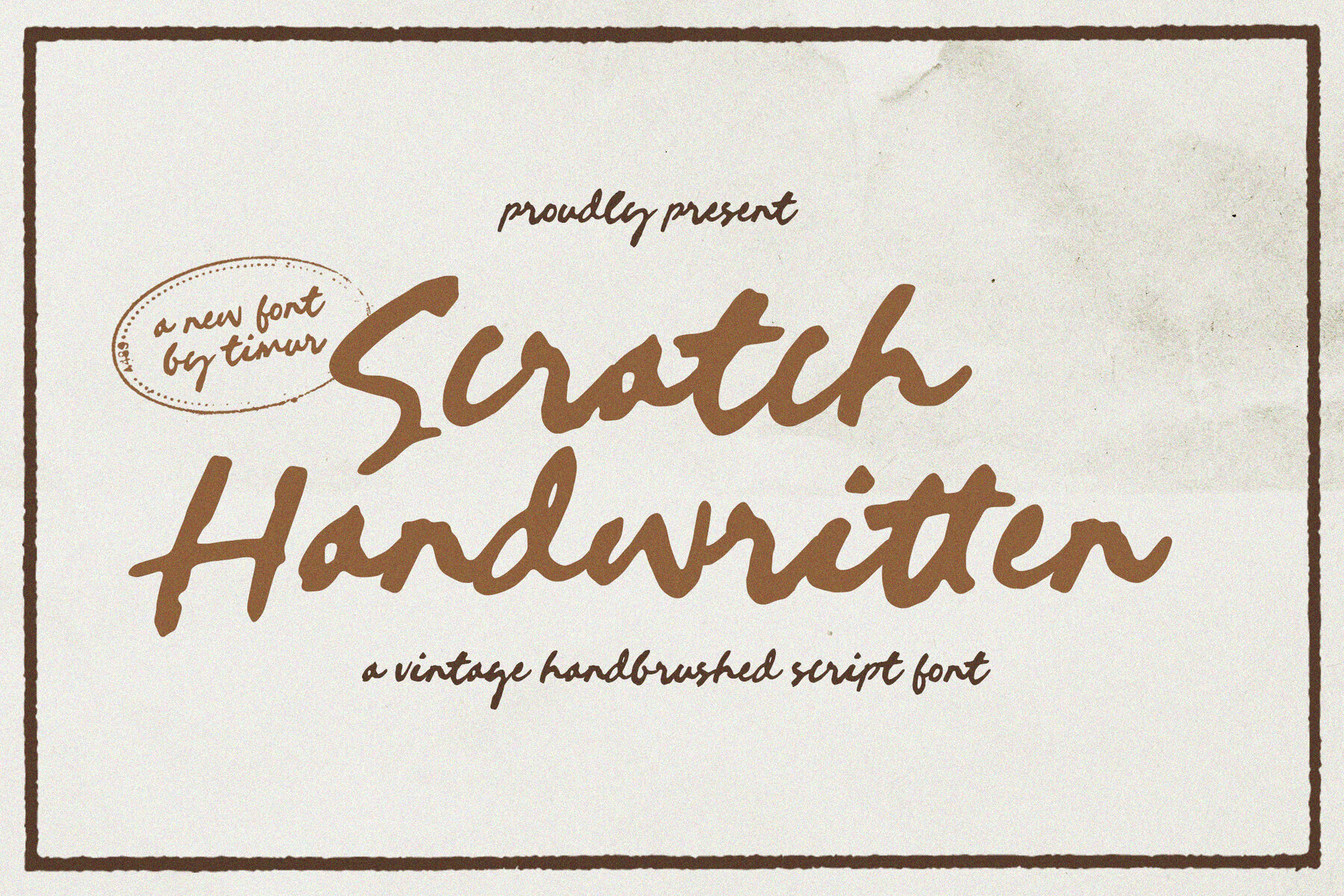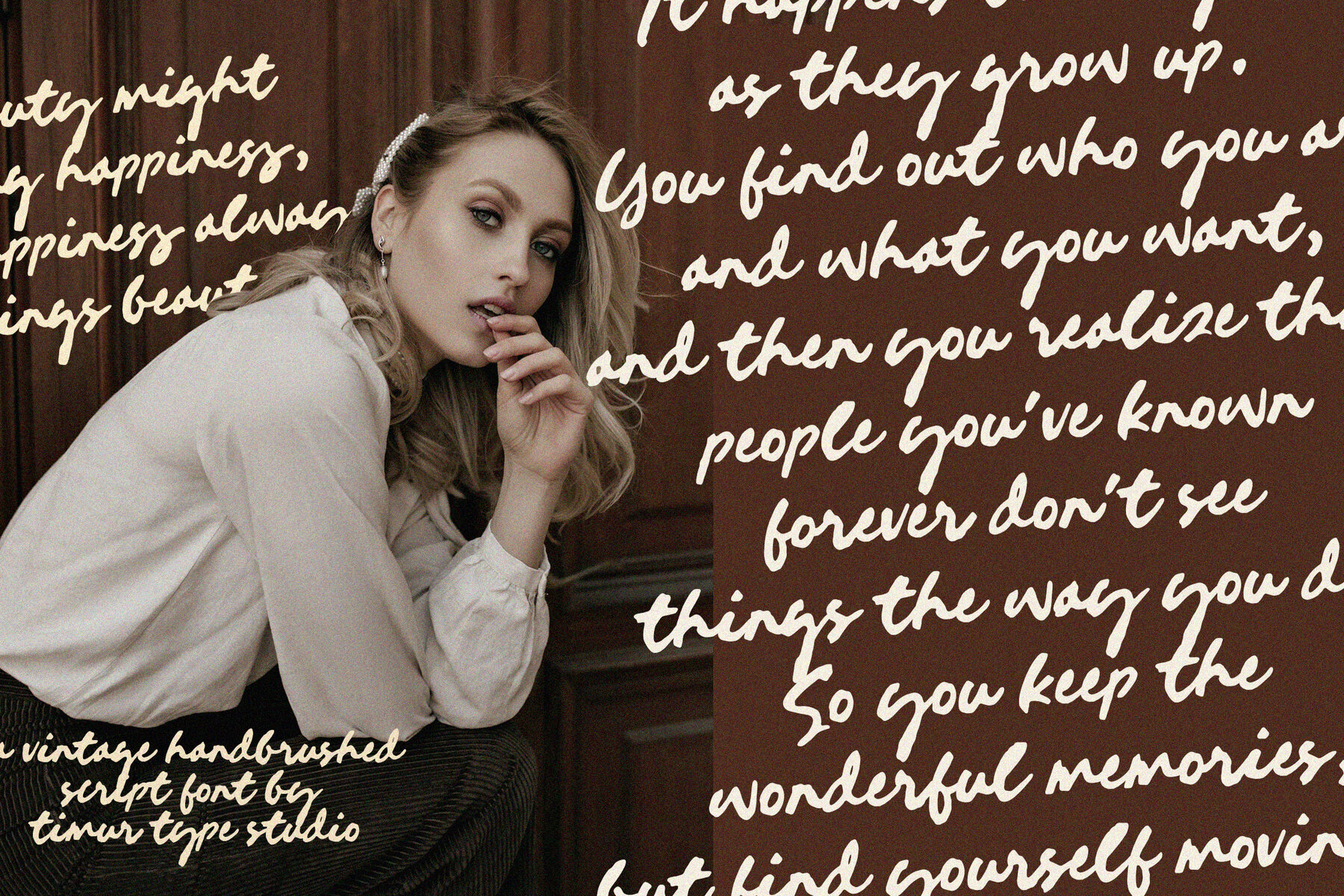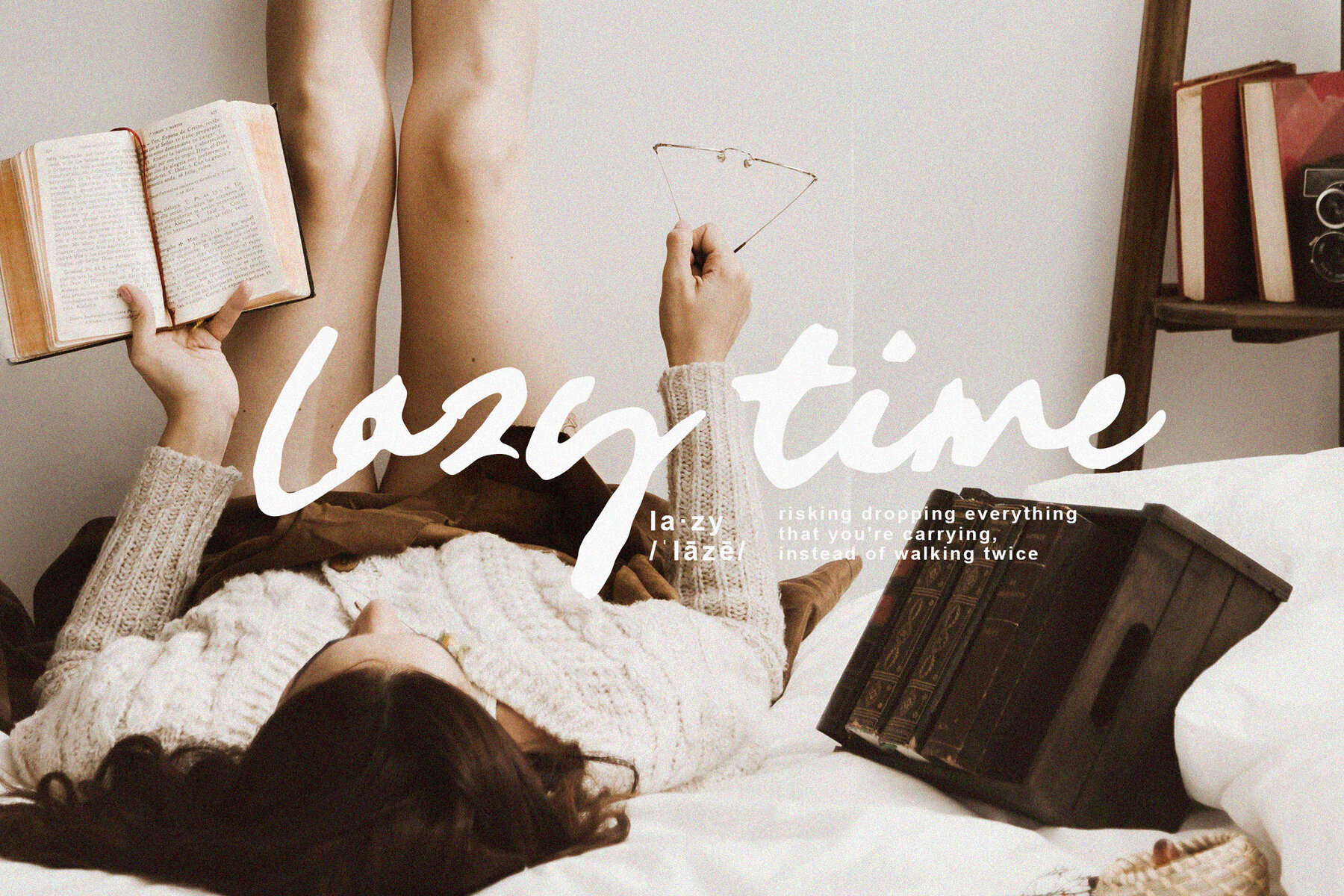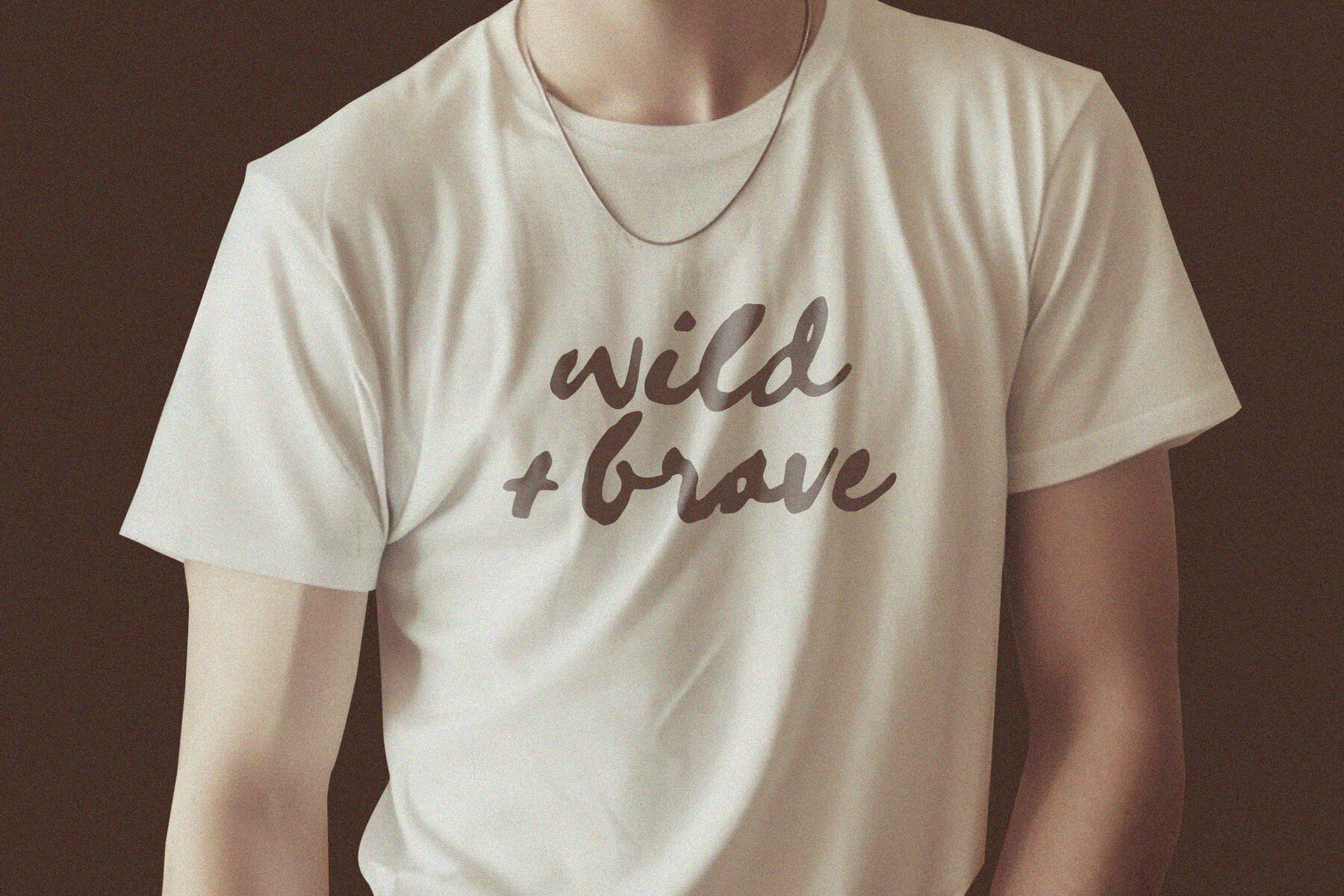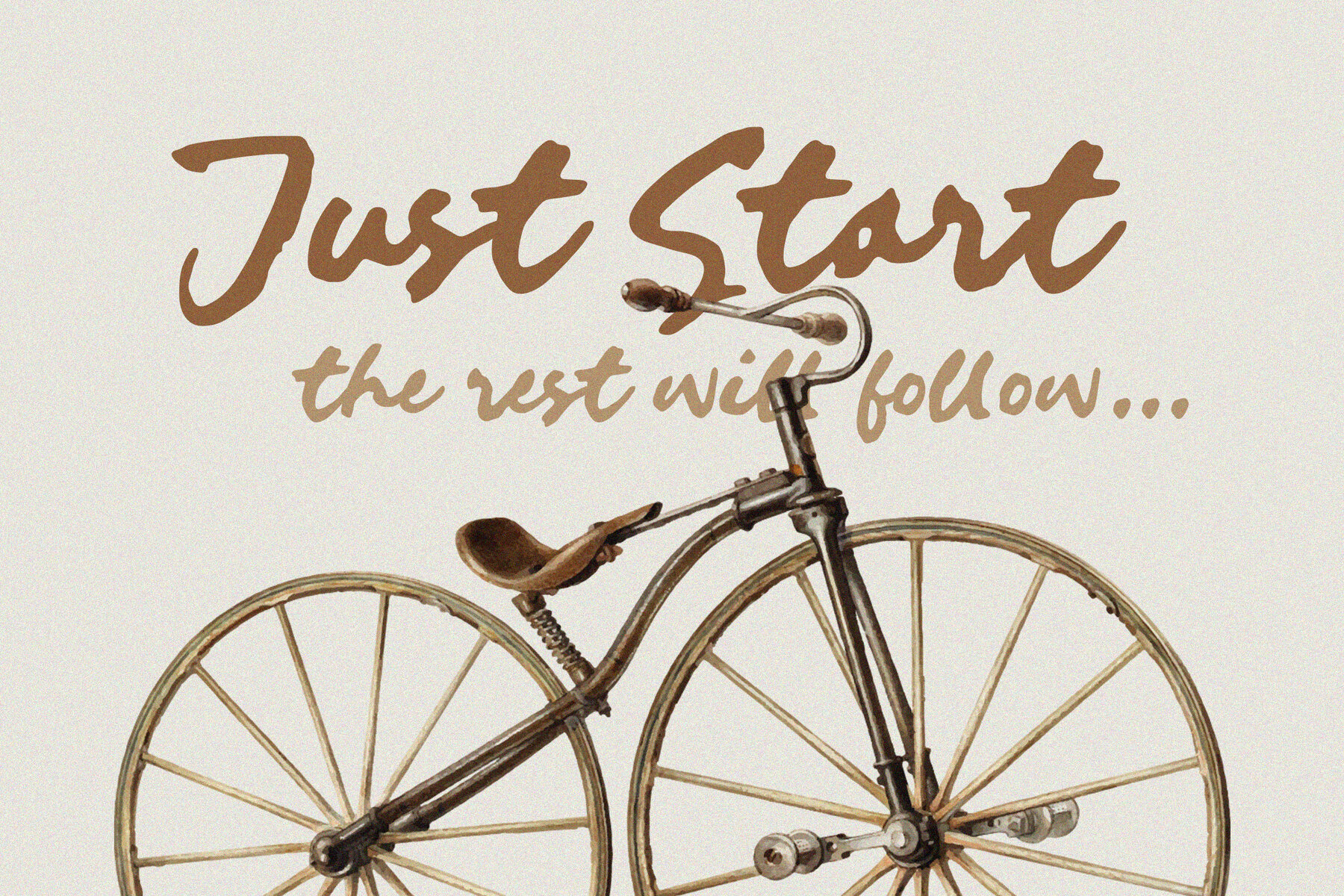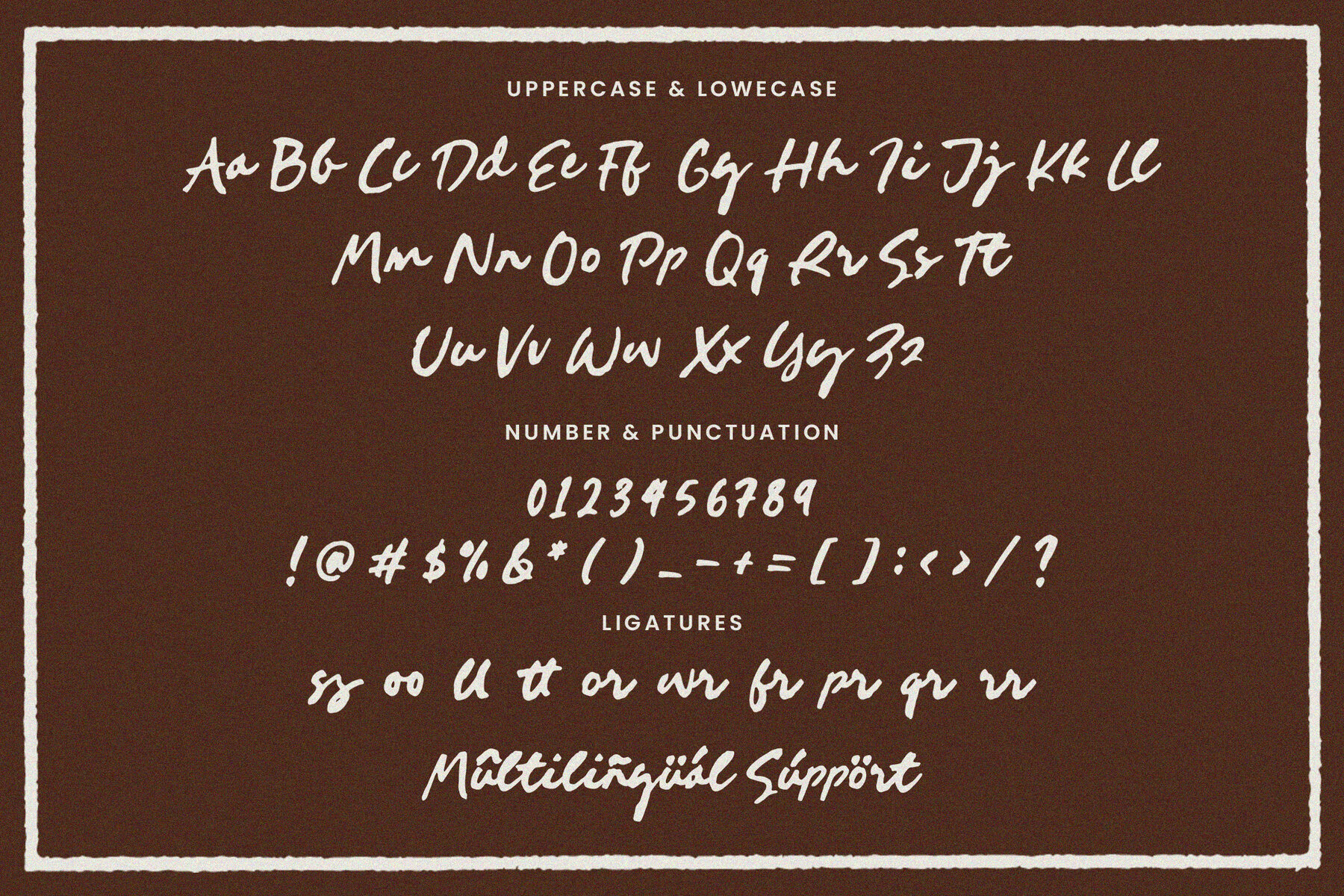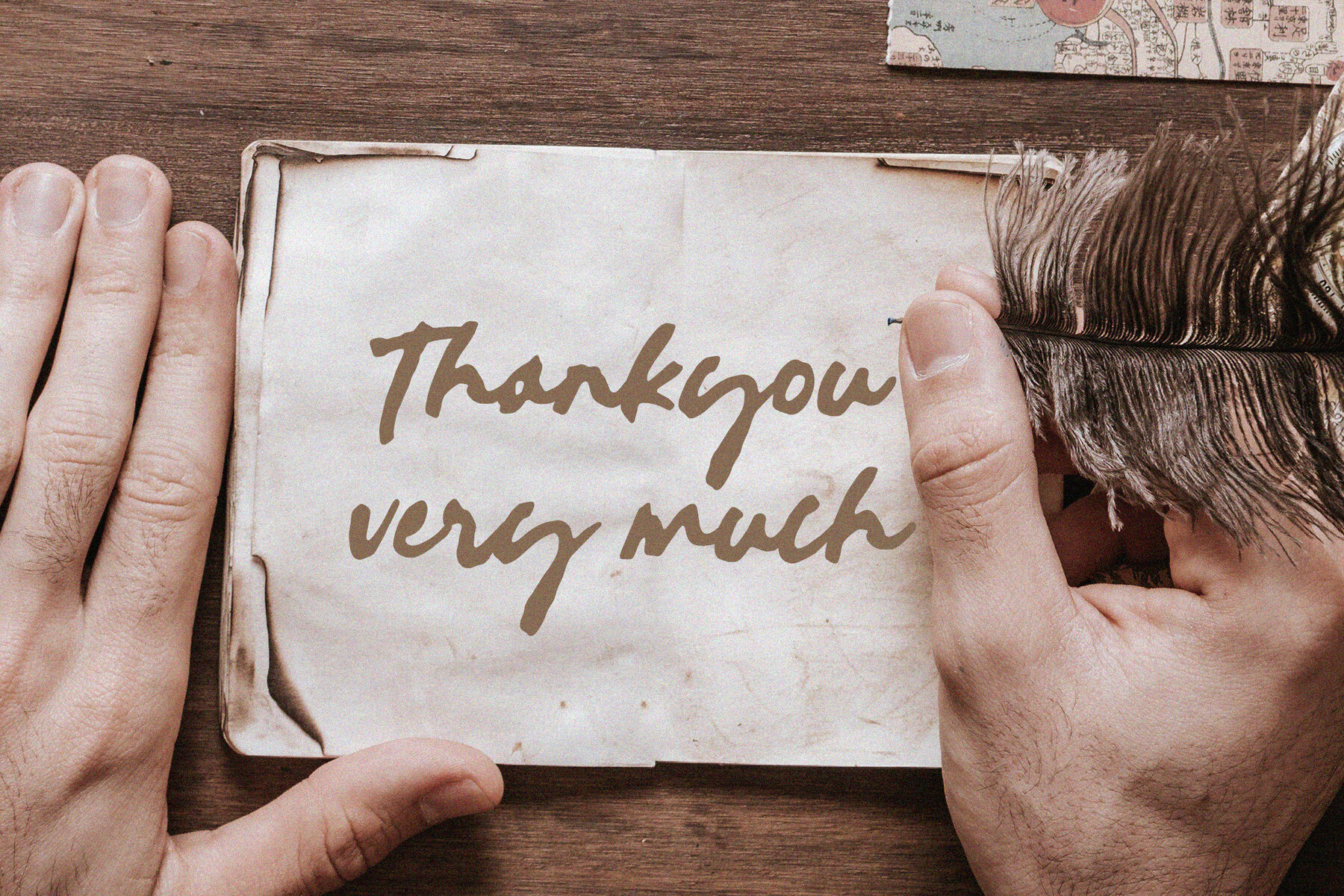
Scratch Handwritten Font
Scratch Handwritten
Scratch Handwritten is a vintage-inspired handbrushed script font that beautifully evokes nostalgic authenticity. Its carefully crafted irregular strokes and subtle imperfections reflect the elegance of handwriting from a bygone era. This font offers a unique charm, perfect for infusing character into your designs.
Ideal for invitations, signage, and branding projects, Scratch Handwritten seamlessly combines classic flair with modern readability. Its versatility makes it a great choice for designers aiming for a timeless aesthetic in their work. Whether you're crafting formal invitations or creating eye-catching signage, this typeface adds a sophisticated touch that resonates with audiences seeking authenticity and style.